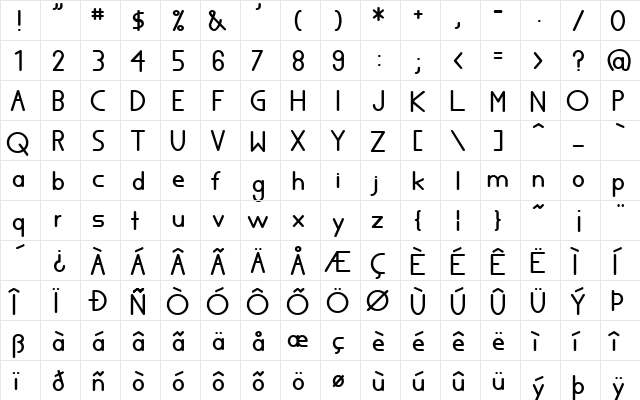
Eloquence Regular
Design Context for Eloquence Typeface
Eloquence takes a measured approach to typography — its balanced proportions and neutral character make it a reliable workhorse for both digital and print work.